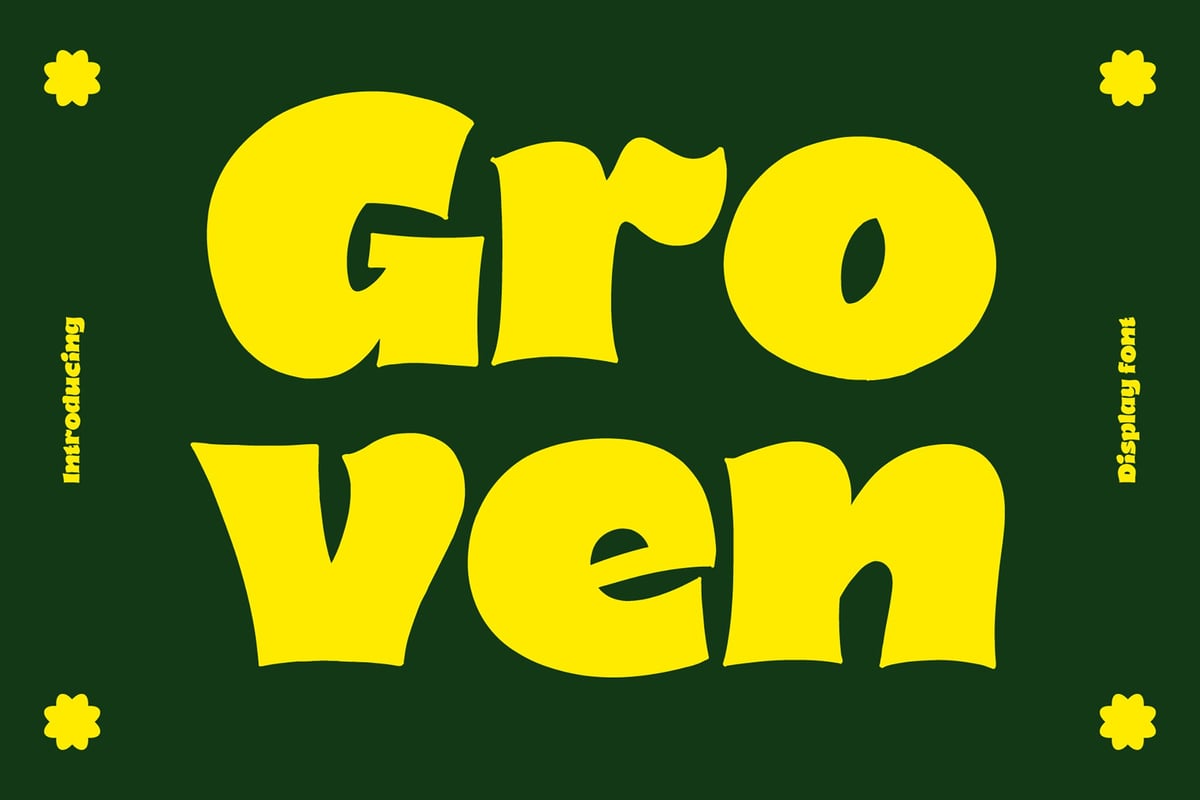
Groven – Food Font
Make your food brand pop with Groven – a bold, chunky display font that serves up maximum personality and instant eye appeal. This funky typeface combines modern energy with retro charm through its playful, chunky letterforms. Groven delivers a fun and energetic vibe that's designed to grab attention and make your brand unforgettable. Complete character set includes uppercase and lowercase letters, numerals, punctuation, symbols, and multilingual support – making it versatile for both digital an...